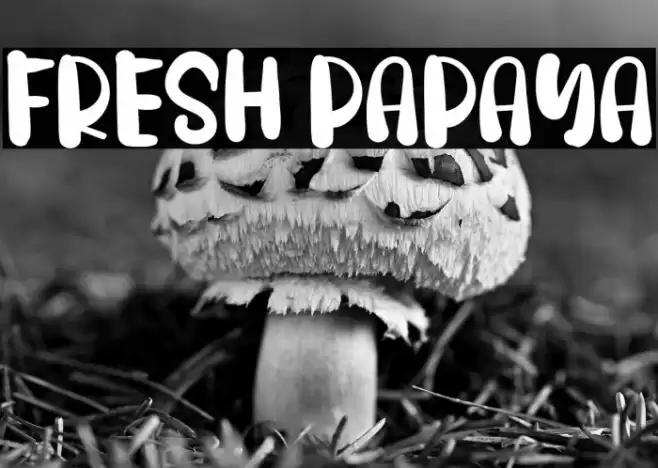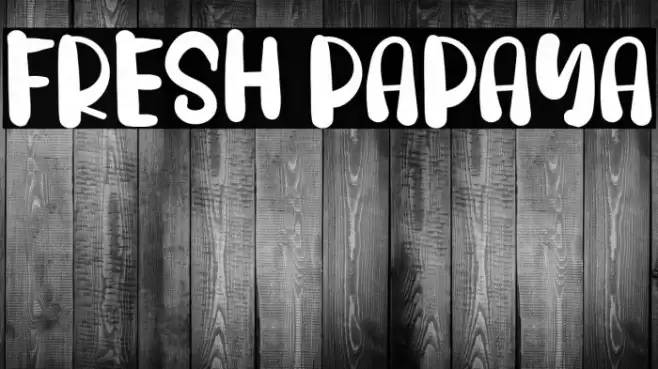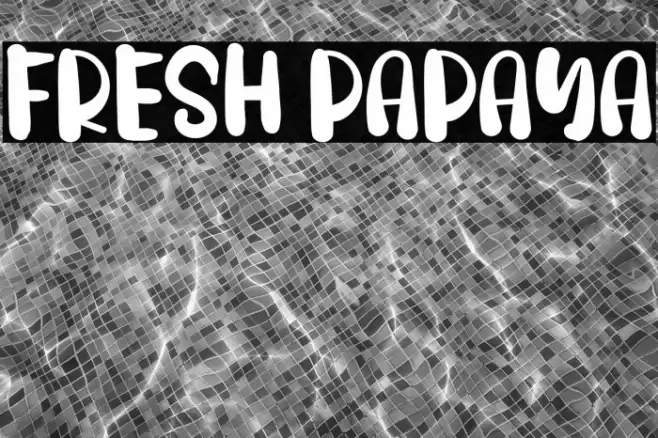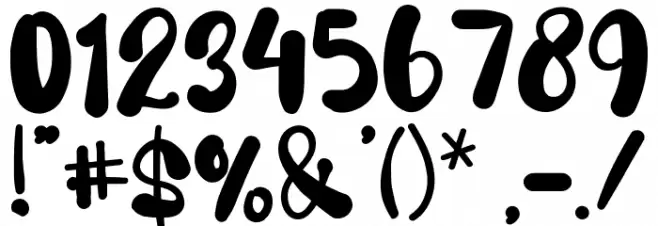
FRESH PAPAYA Font
FRESH PAPAYA Description
This playful and bold font features a handwritten style with thick strokes and rounded edges, giving it a friendly and approachable appearance. The uppercase and lowercase letters maintain a consistent weight, creating a harmonious look. The numbers and special characters are equally bold, ensuring readability and visual impact. Its informal and lively design makes it suitable for creative projects that require a touch of personality and fun. The font's overall style is modern and decorative, making it ideal for eye-catching headlines and unique branding materials.
A bold, playful handwritten font with thick strokes and rounded edges from Handwritten fonts.
- Proposed Projects: Ideal for children's books, playful branding, event posters, and creative social media graphics.
- Overall Style: Modern, Decorative